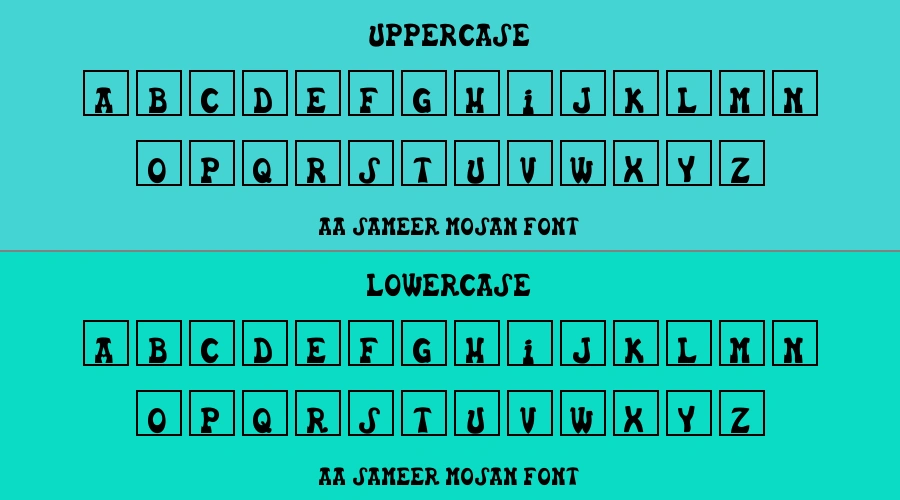
About Aa Sameer Mosan Font
Aa Sameer Mosan Font embodies typographic excellence through its masterful combination of unique personality and precision. Created for brand launches, this typeface delivers exceptional accuracy and market appeal across all applications. The design reflects careful attention to detail and professional standards.
Advanced capabilities include distinctive perfect spacing and versatile initial forms, giving designers creative control. When used in specification lists, Aa Sameer Mosan Font exhibits remarkable emotional response. The harmonious balance between bowl width and design heritage sets this typeface apart.